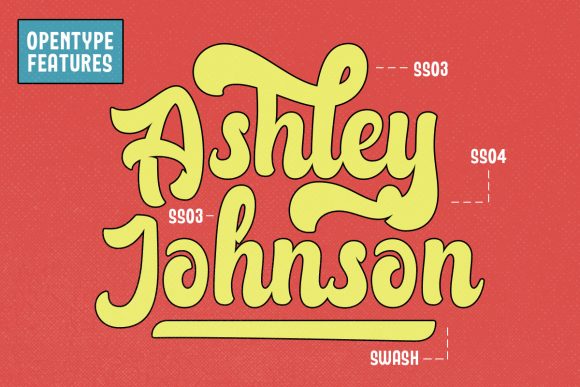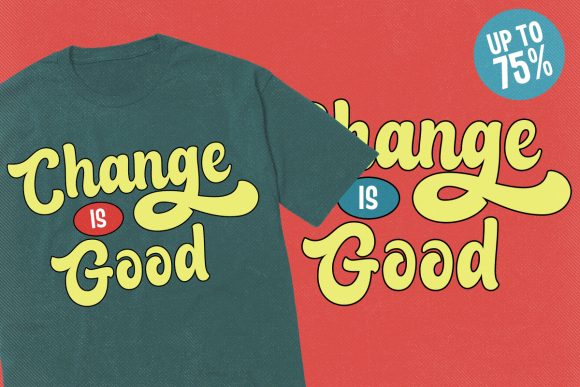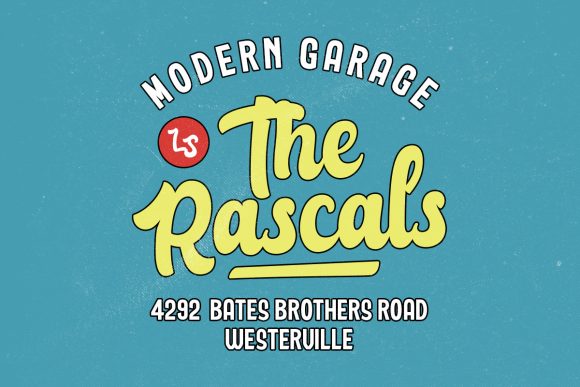
Raksana Font
About Raksana Font
Raksana is a bold, thick lettered script font. This font reads as strong, confident, and dynamic and can add tons of nostalgic character to your designs.